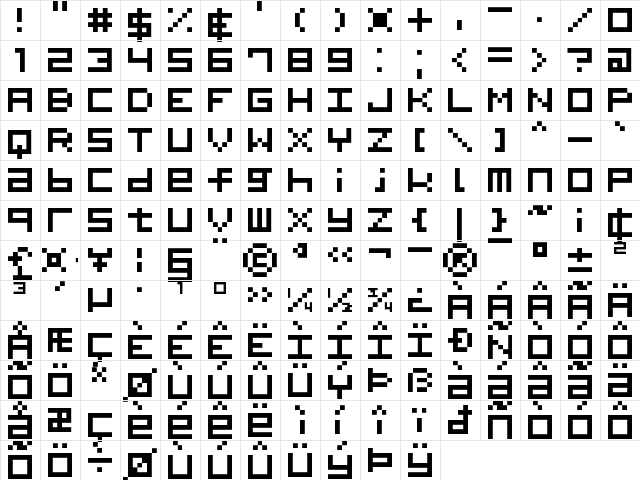
Reblinking Regular
| Designer | JoohnFonts |
Design Context for Reblinking Typeface
Reblinking is a composed and adaptable typeface that performs quietly and consistently across a wide range of design contexts.